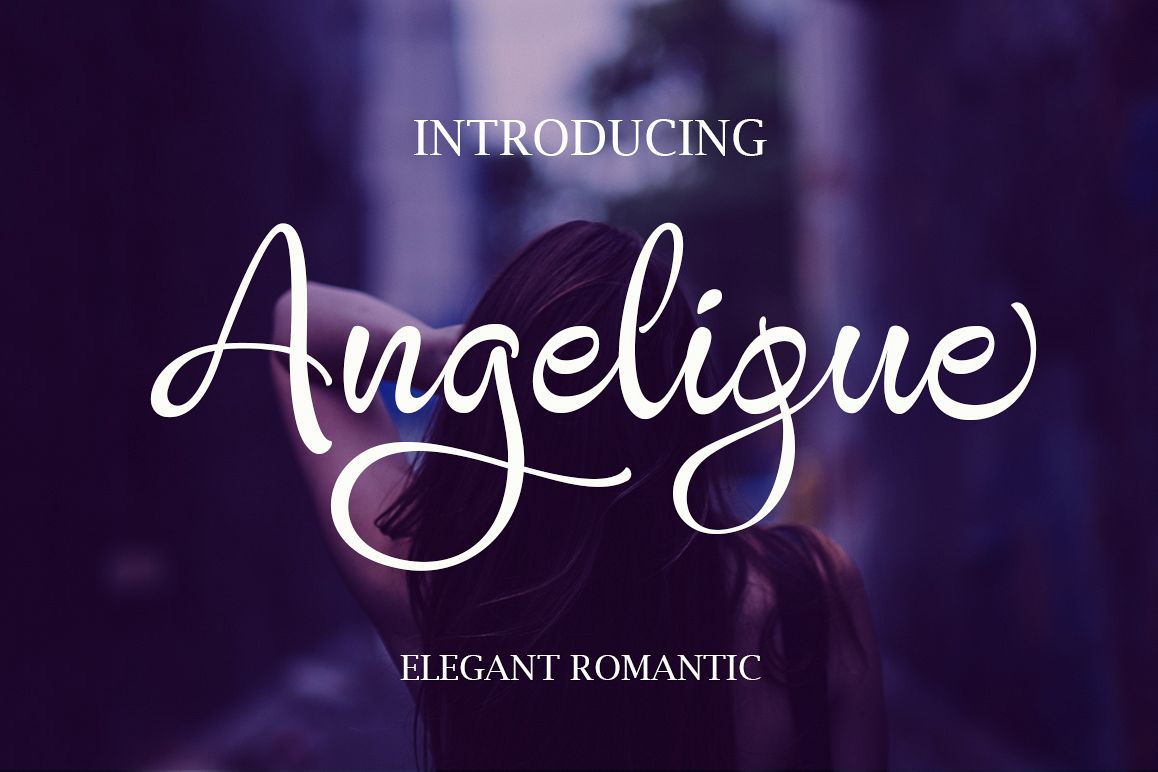
Angelique
Angelique is a very thick but smooth handwritten font. It gives you the feeling like somebody carefully drew the lines with a thick marker.The font contains many extra characters, see also the images. The font is compatible with Cricut Design Space, Silhouette Studio, Microsoft Word and any other type of application that support installable fonts. The font is PUA encoded, so all the characters are easily accessible.